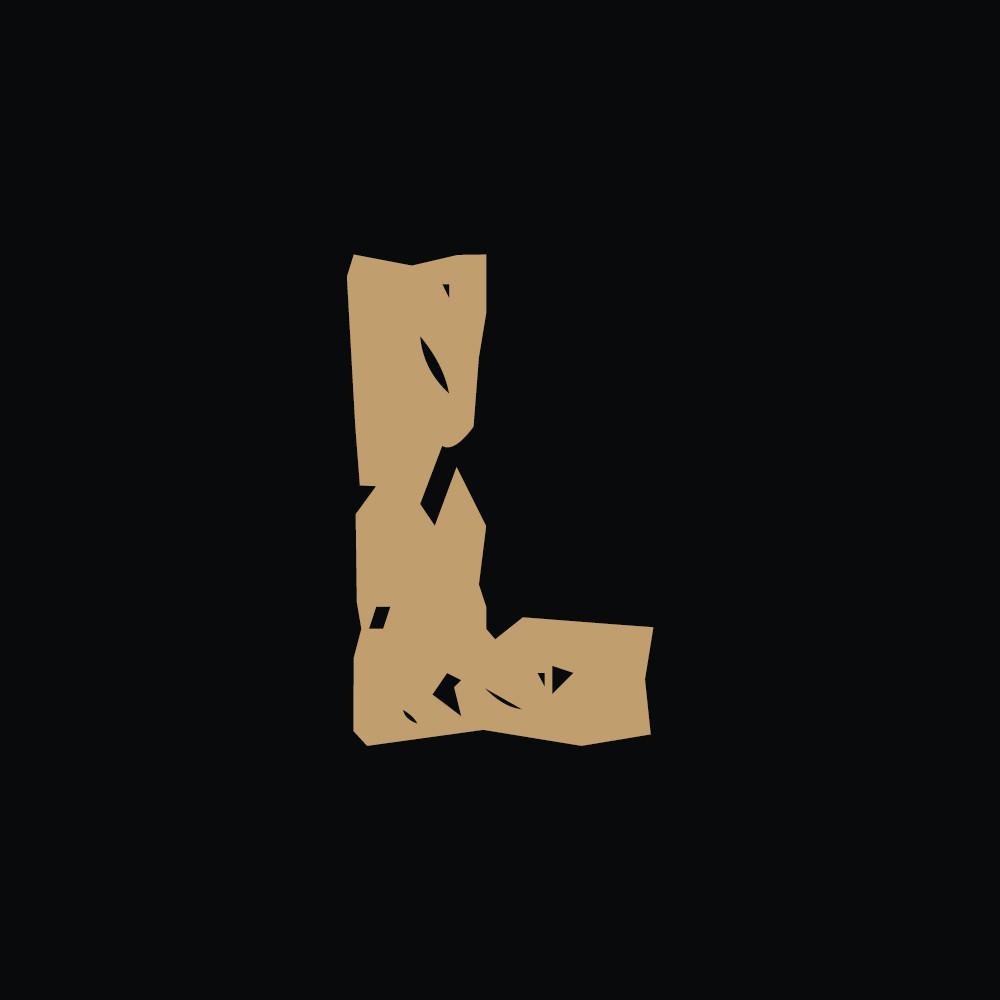
Champsville Font Description
Champsville results out of a stunning pairing of a brush pen and pencil that makes it look incredibly endearing and authentic. It comes packed in 4 styles: regular, rounded, inked, and stamp Use this gorgeous and unique display font to bring any DIY project to life!